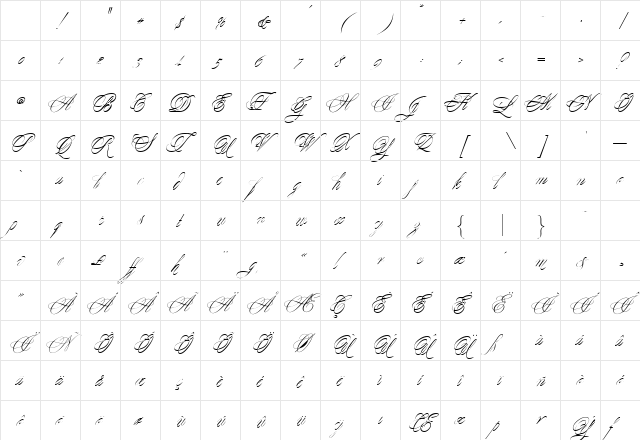
Complete Yesterday DB Regular glyph index. Displaying only characters natively supported by Yesterday DB Regular font.
Yesterday DB is a composed and adaptable typeface that performs quietly and consistently across a wide range of design contexts.